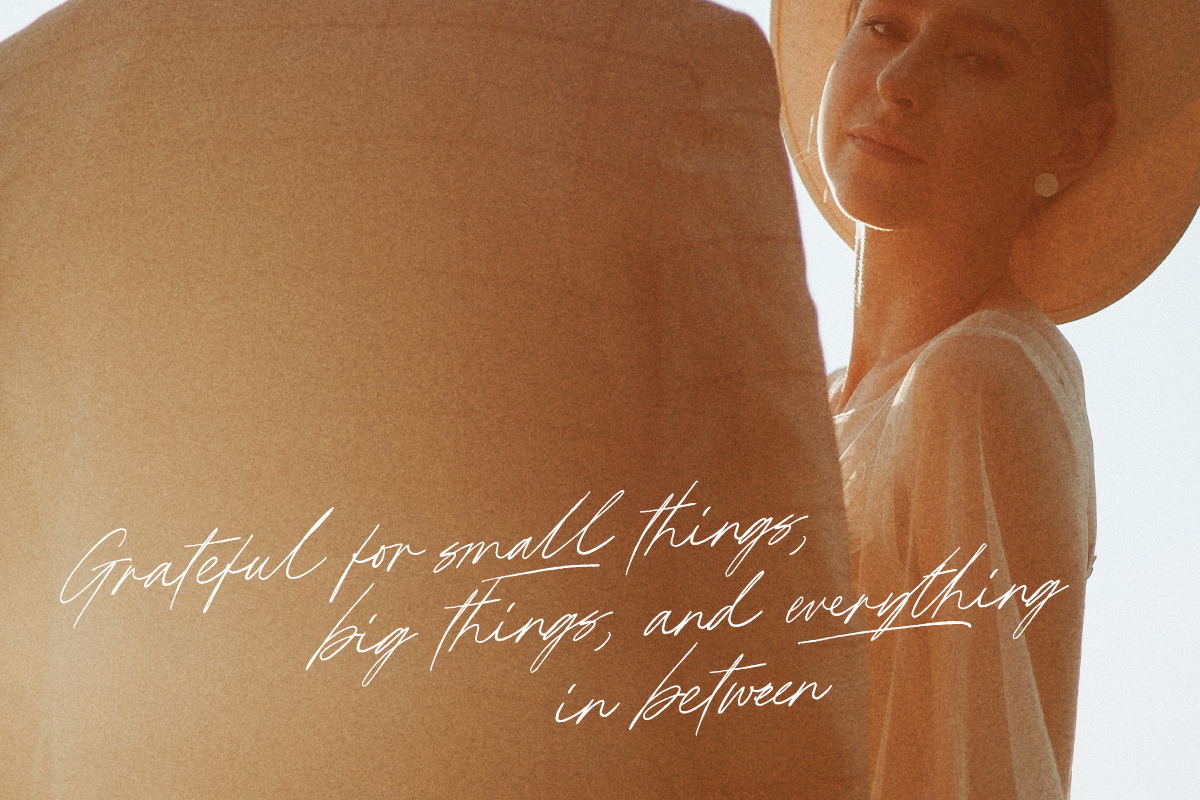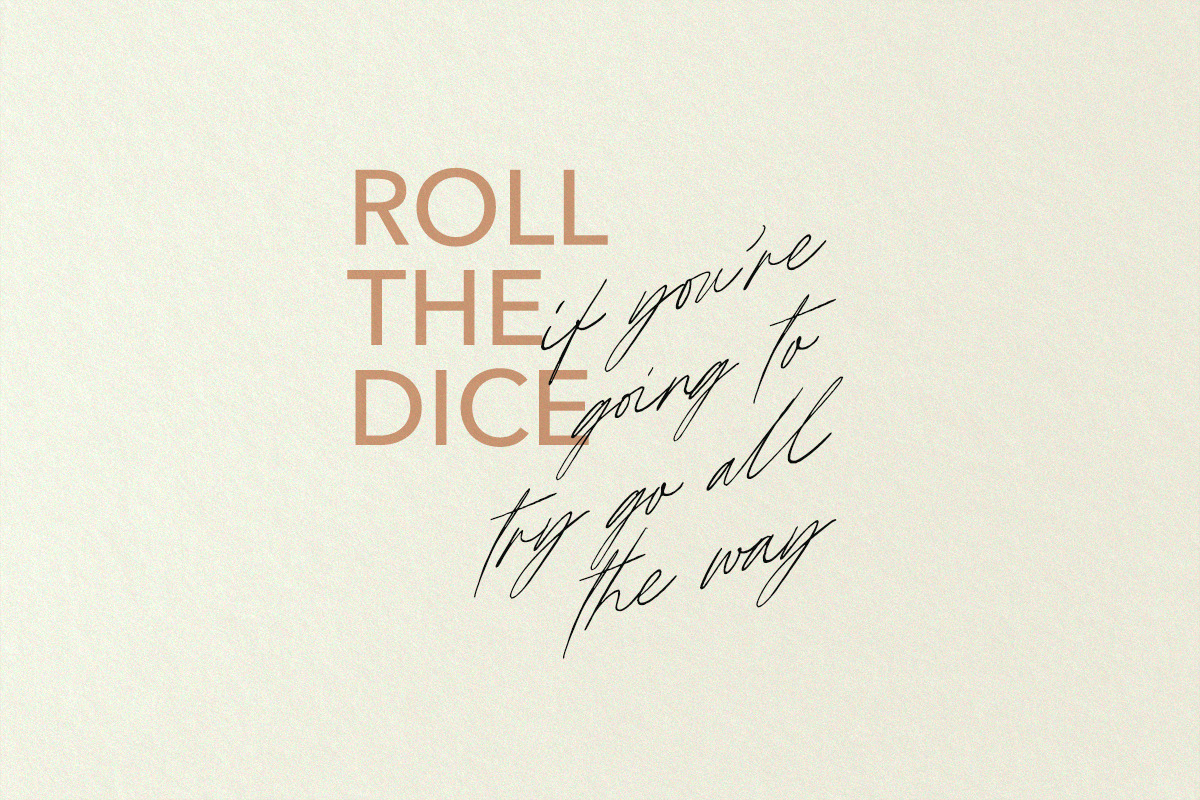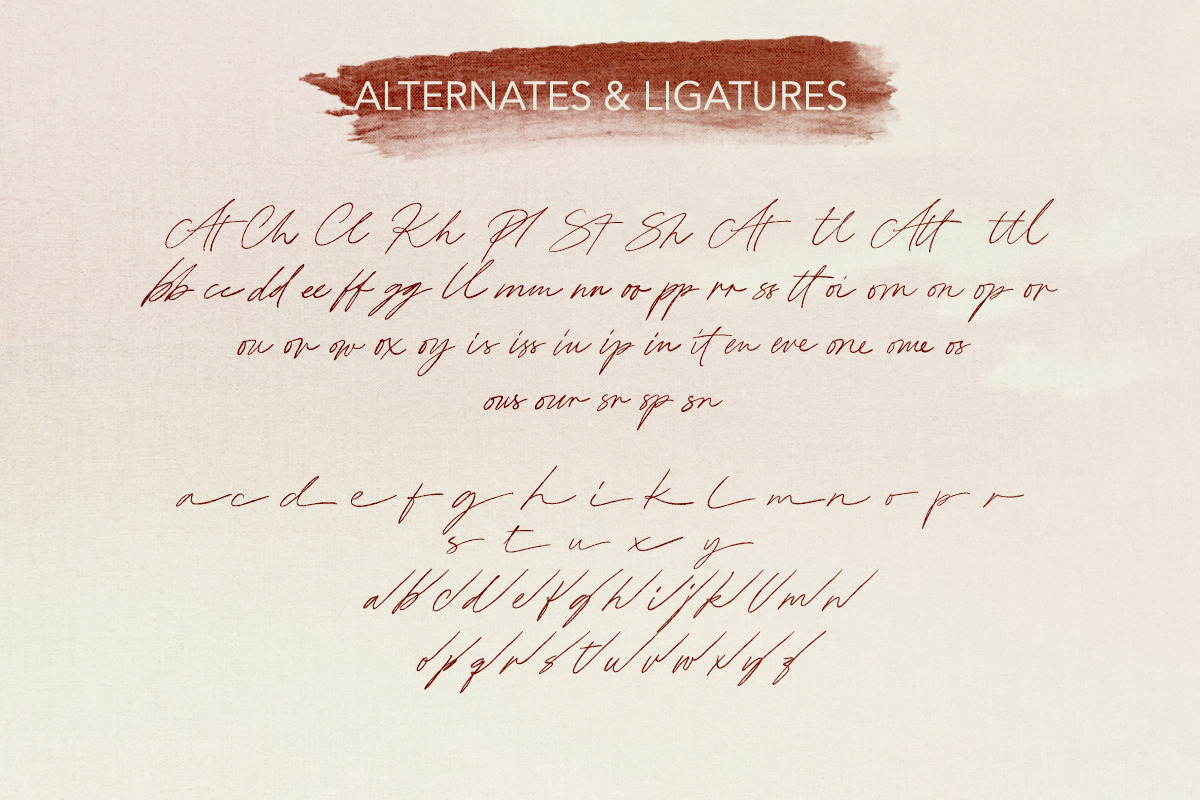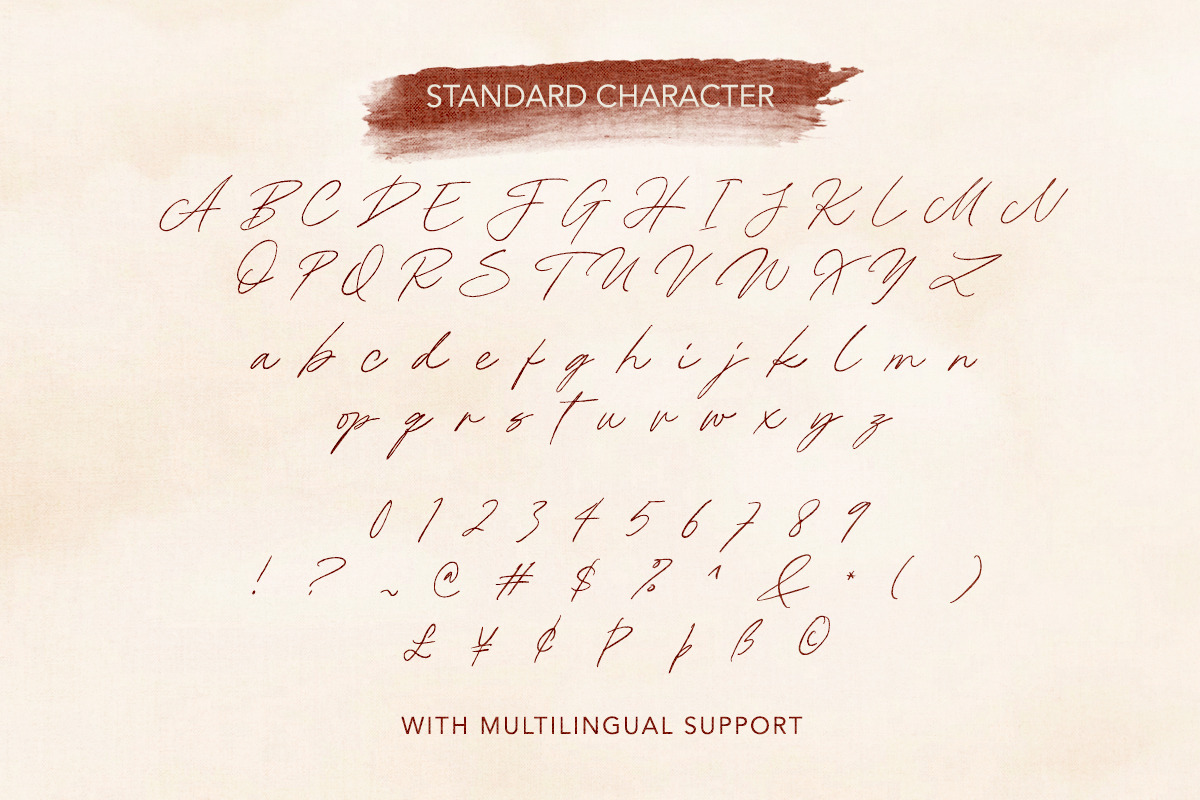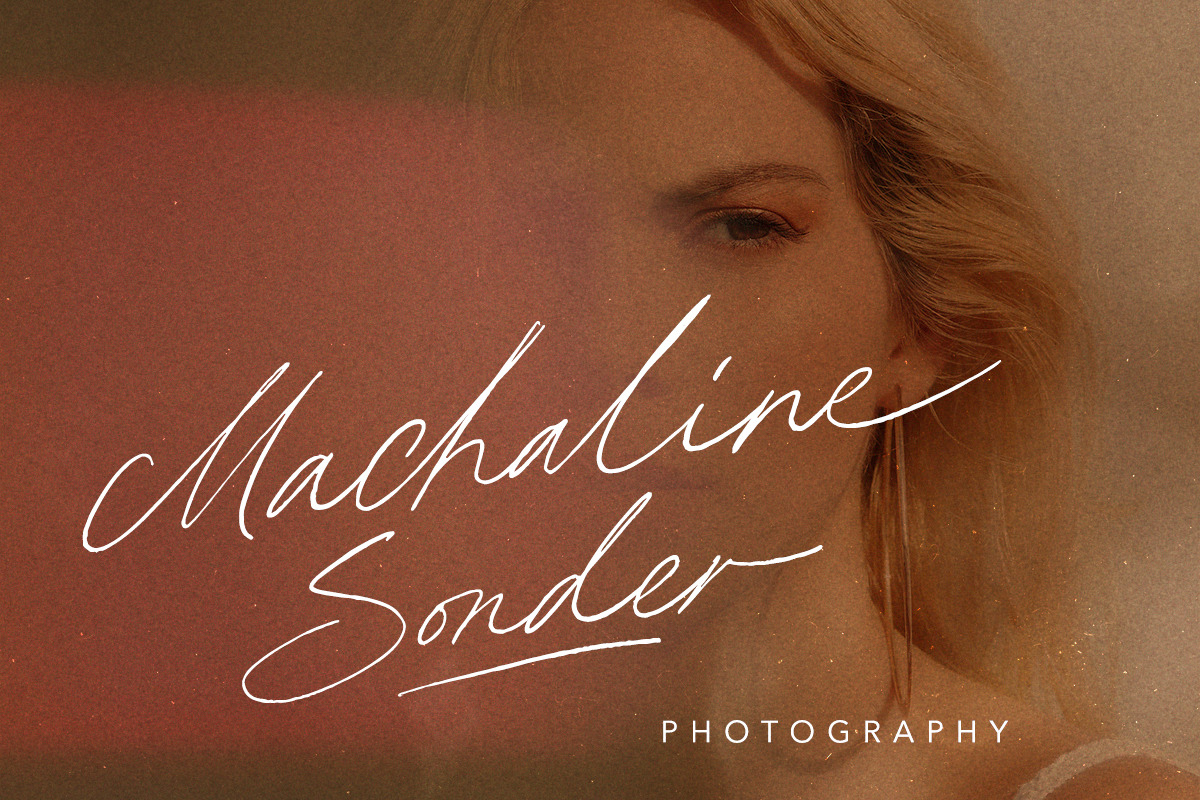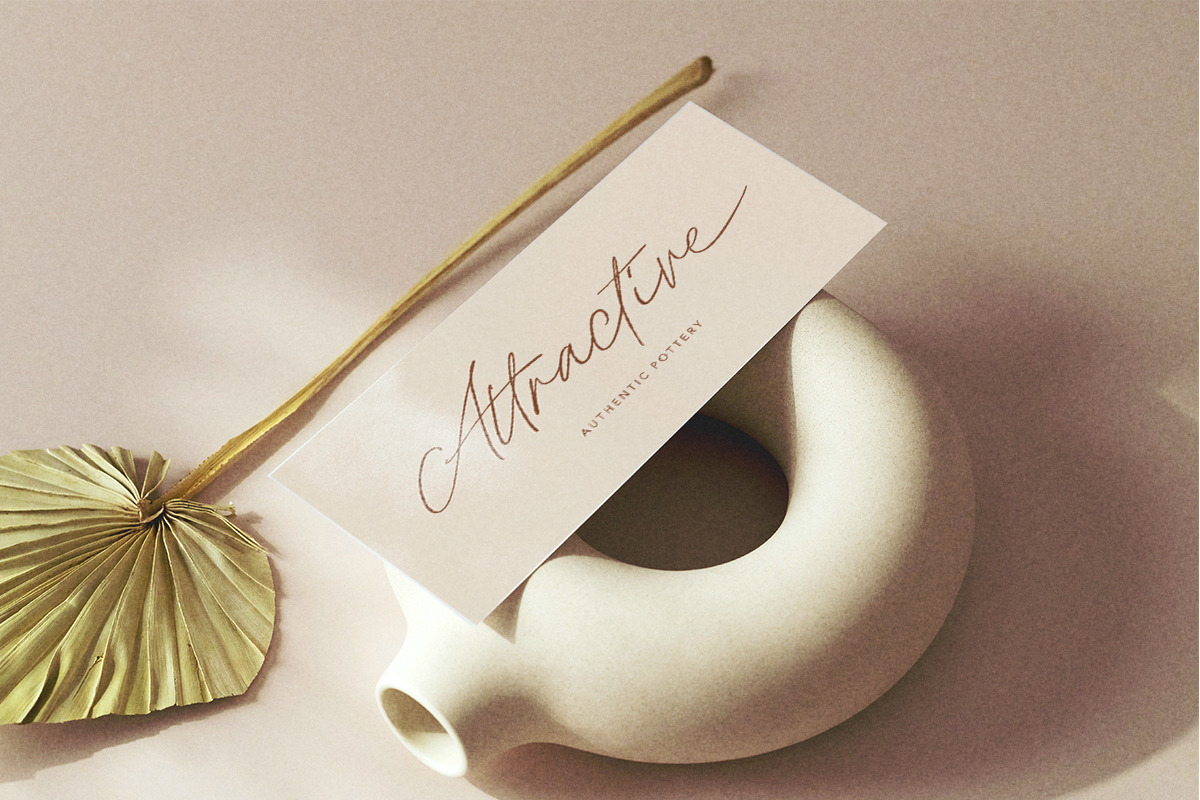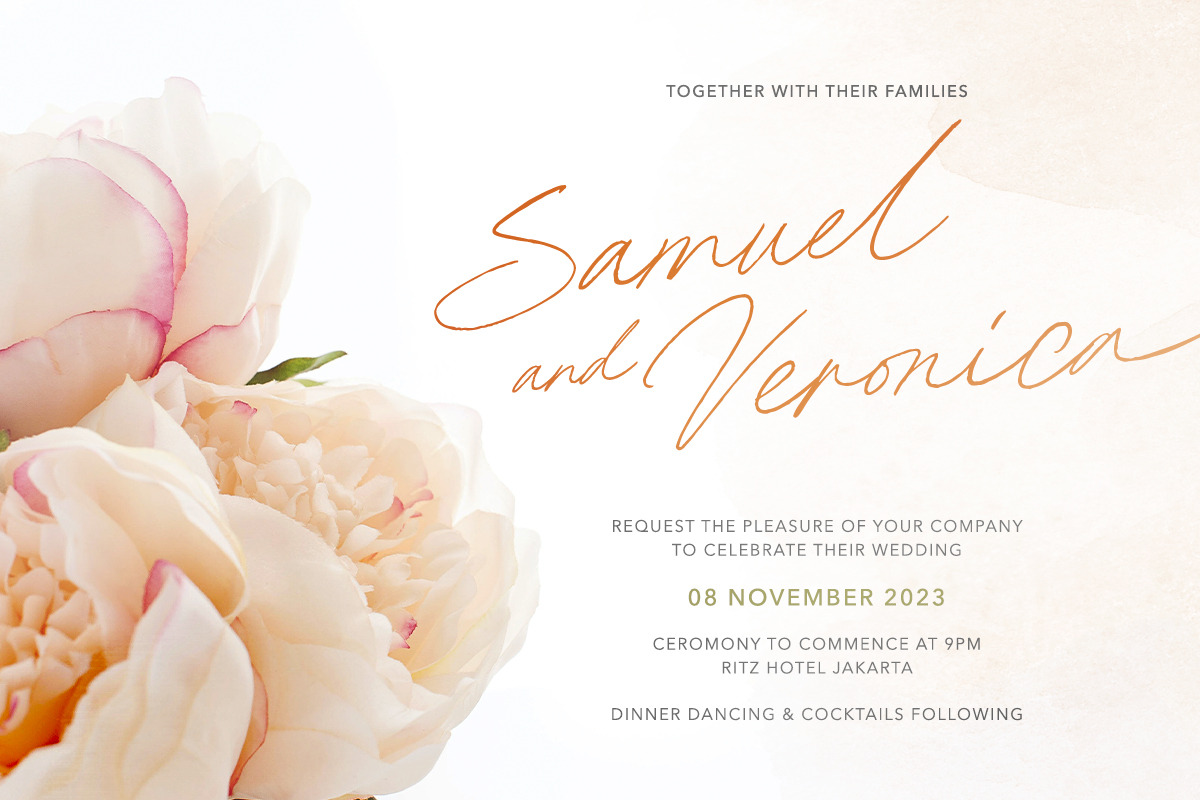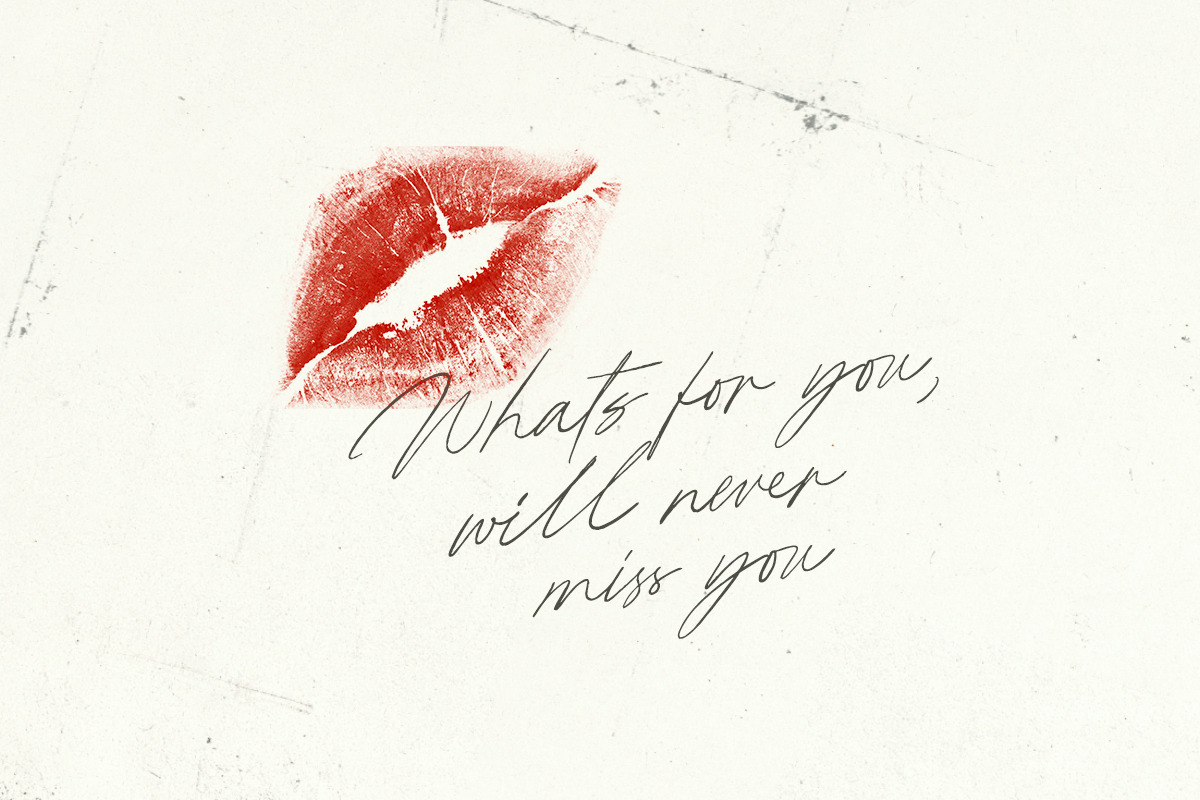
Miss Phillips - Handwritten Script
Miss Phillips is the new handwritten script that have many ligatures and alternates. With all the features, this font will make your project looks more stunning and natural that can be used for a variety of purposes, including quotes, branding, or wedding invitations. You can access the underline with opentype feature, just type underscore + number (1-3) for example Hand_3writing. This font also support multi language!